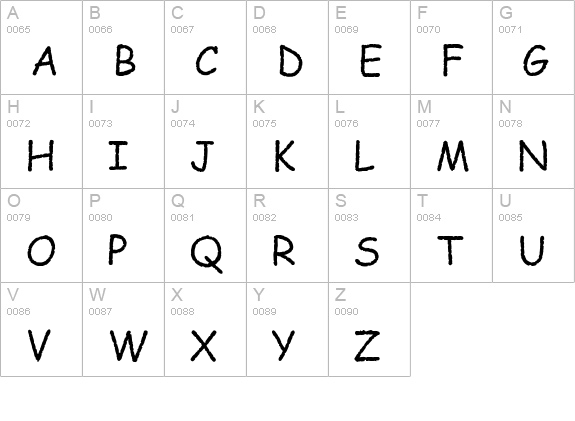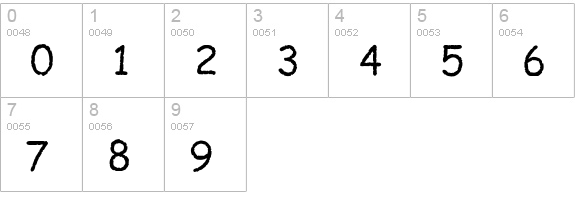
Comic Papyrus Font Details
Comic Papyrus is a free for personal use font in the Script > Handwritten category, designed by FontsMarket22. It has been downloaded 60 times and is available for Windows, Mac and Linux.
Comic Papyrus font is a whimsical and playful typeface that combines the lightheartedness of Comic Sans with the artistic flair of Papyrus. With its unique blend of different styles, Comic Papyrus is perfect for adding a touch of fun and creativity to your designs. This font is free to download at FontsMarket.com, making it easily accessible for anyone looking to add a fun twist to their projects. Whether you're designing a poster, flyer, or greeting card, Comic Papyrus is sure to bring a smile to your audience's face. So go ahead and download this delightful font today and let your creativity shine!